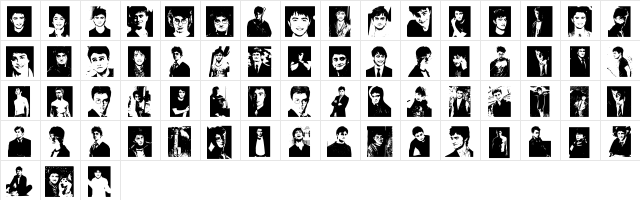
Daniel Radcliffe Daniel Radcliffe
Design Context for Daniel Radcliffe Typeface
Daniel Radcliffe is a composed and adaptable typeface that performs quietly and consistently across a wide range of design contexts.